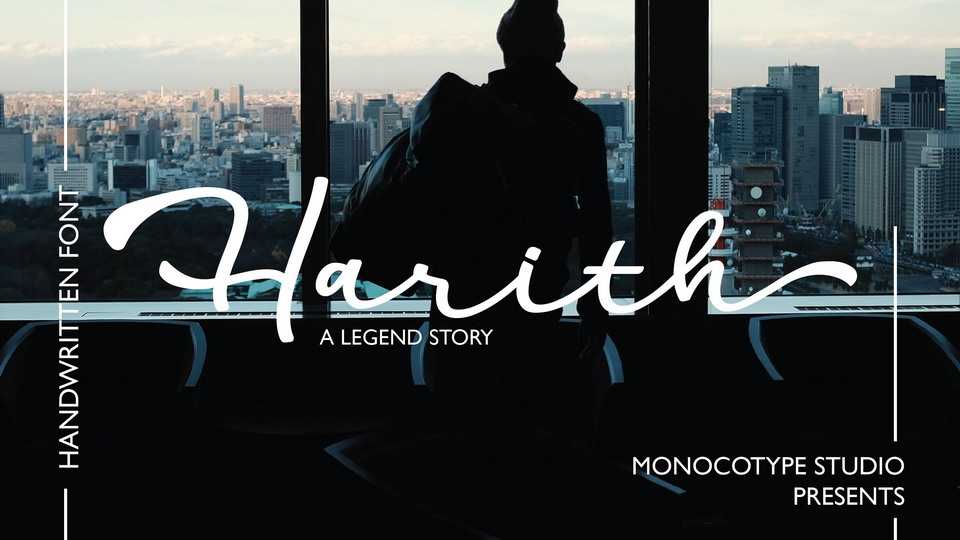
Harith Script Font › Fontesk
Download Harith font, an elegant handwritten script that has swash at the end of letters that gives an exotic and flowing impression. Great for lettering and logotype, labels, t-shirts, product packaging, invitations, advertising and any key text in design.
Designer: Monocotype